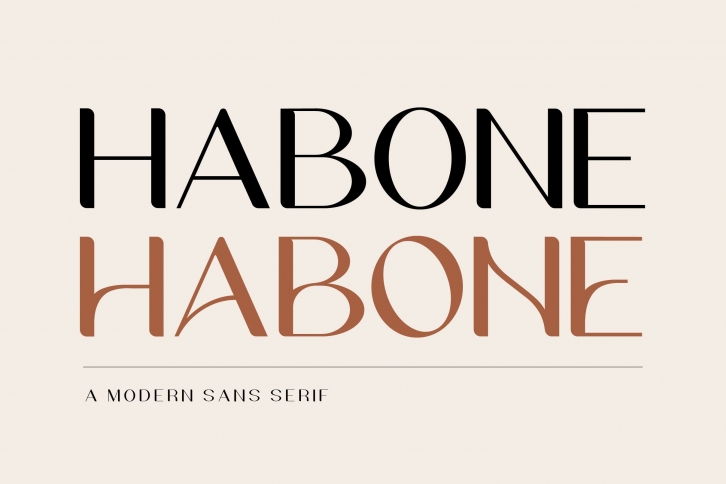
Habone is a modern, sans serif font. It can easily be matched to an incredibly large set of projects, so add it to your creative ideas and notice how it makes them stand out!
- Alternates